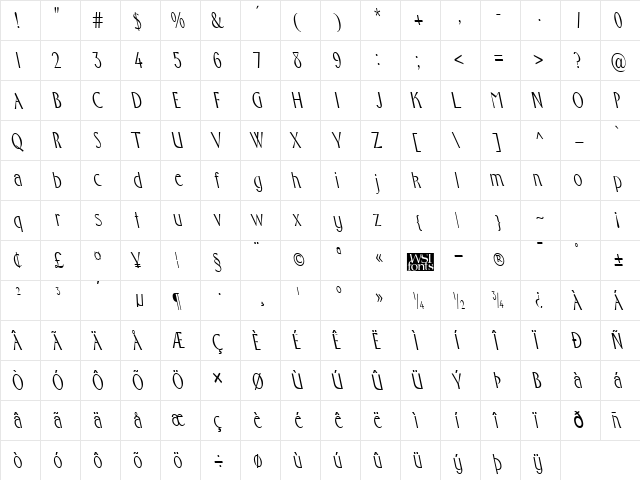
FosterCondensedBS Regular
Design Context for FosterCondensedBS Typeface
FosterCondensedBS is a composed and adaptable typeface that performs quietly and consistently across a wide range of design contexts. Its narrow stance lets it pack a punch even in space-constrained designs.